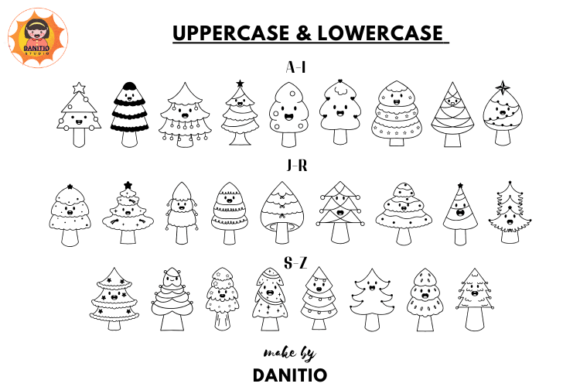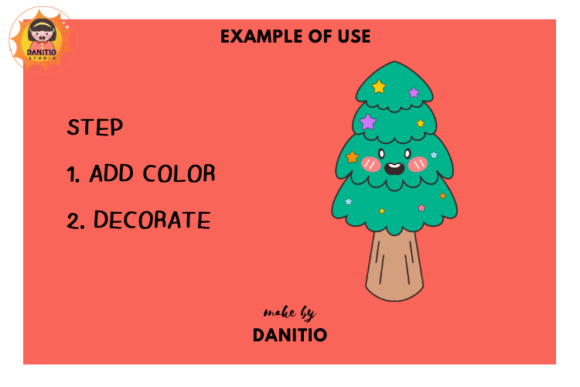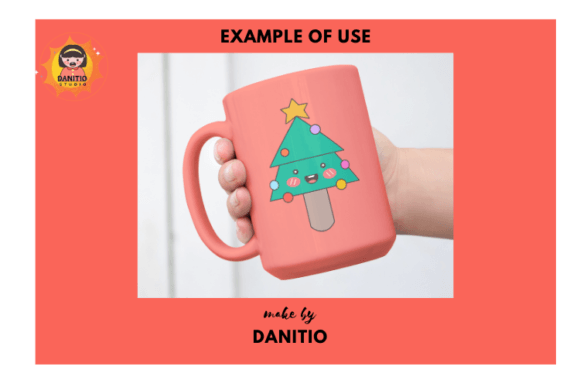
Introduction to Cute Christmas Tree Font
Cute Christmas Tree is a cute dingbat font designed for the upcoming Christmas season.
You can add this font to your design Give your Christmas-themed project a fun and quirky atmosphere.
Key Features of Cute Christmas Tree Font